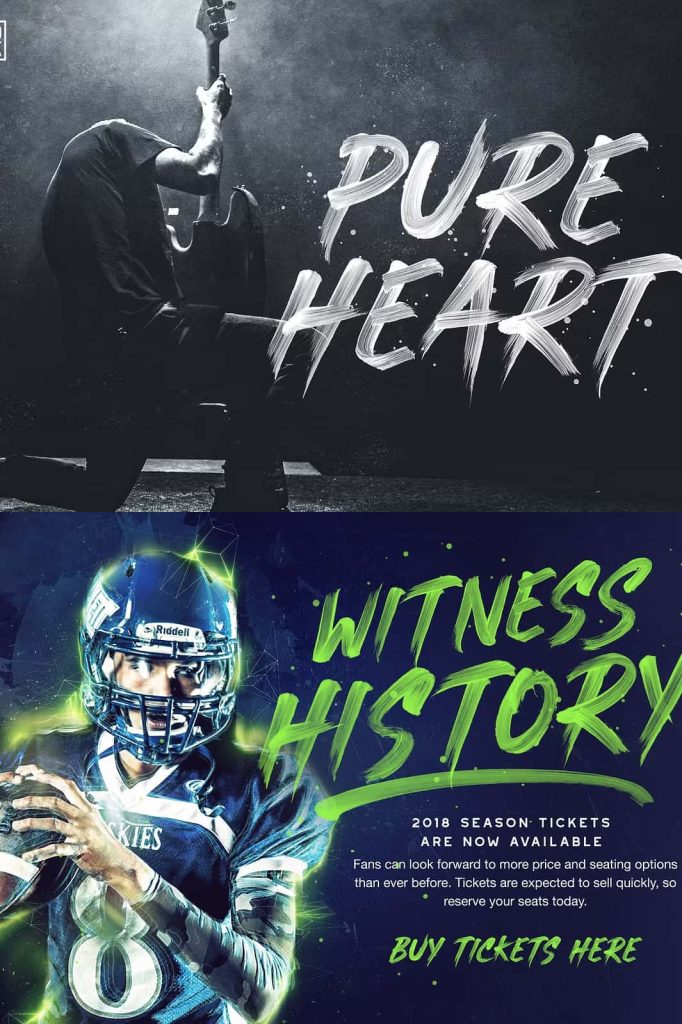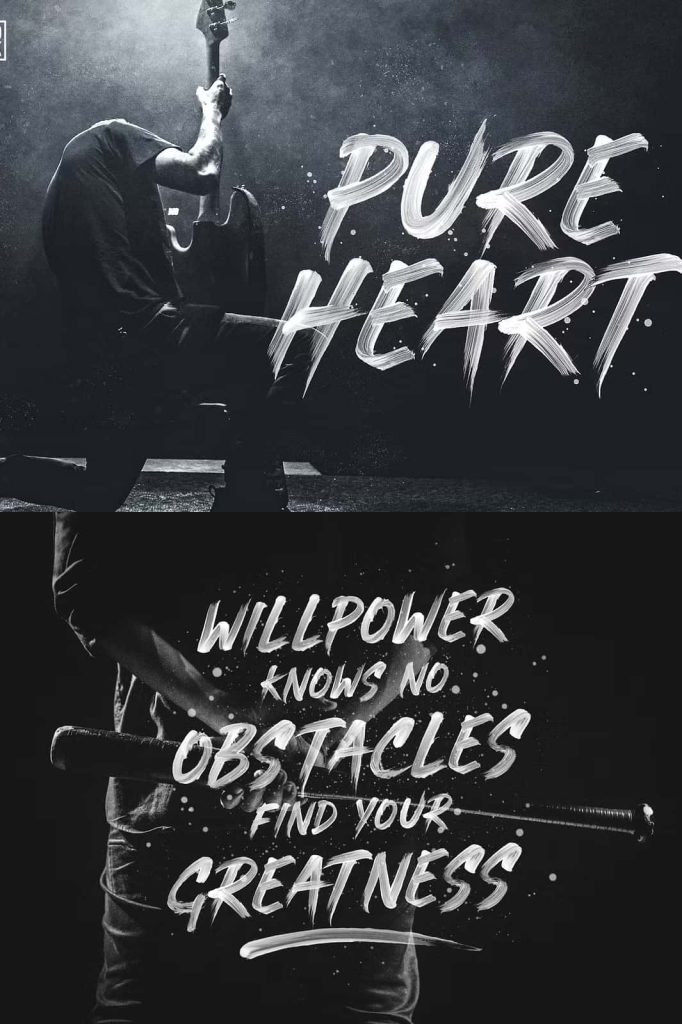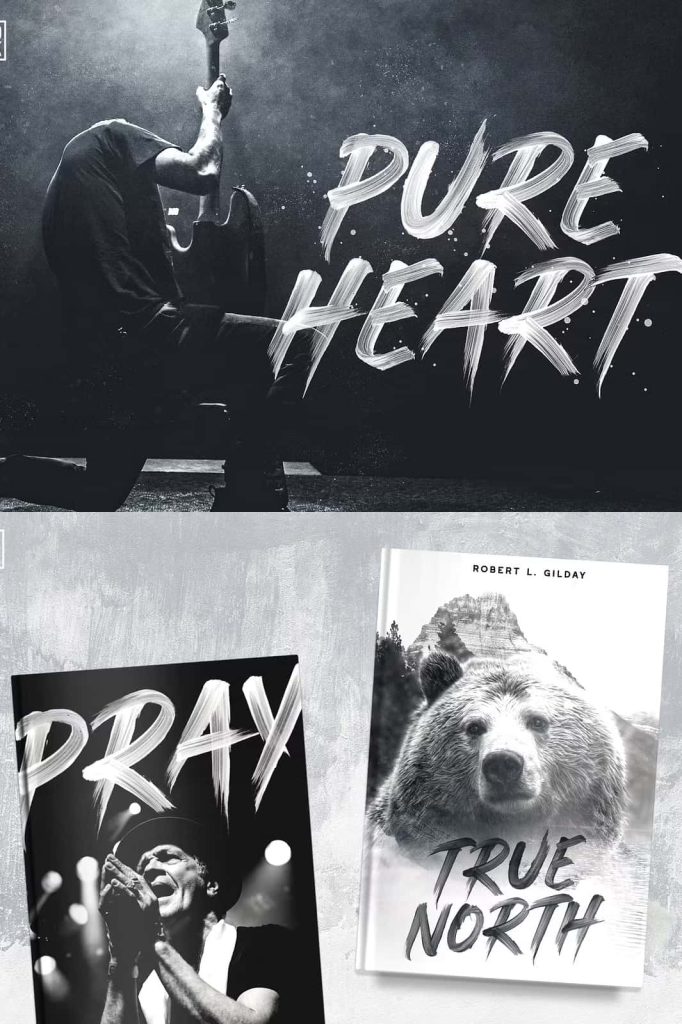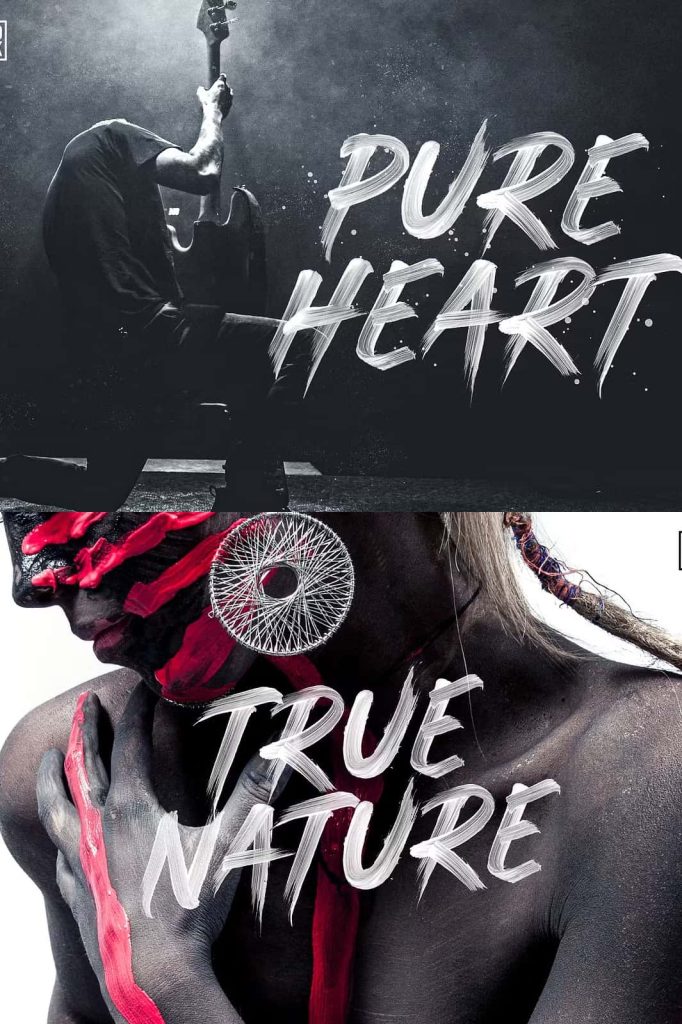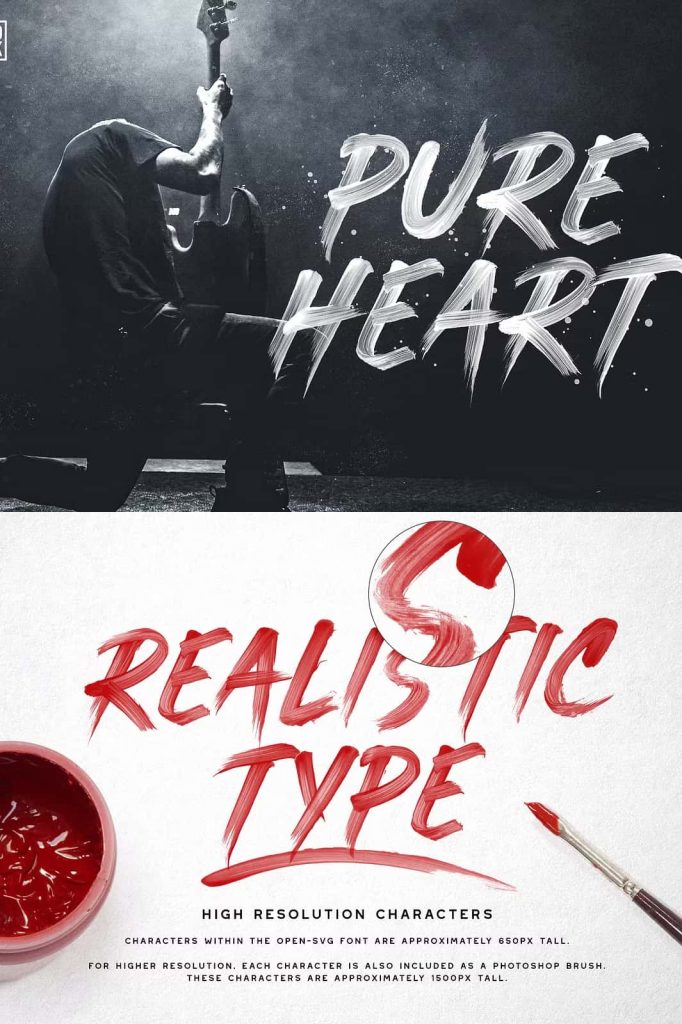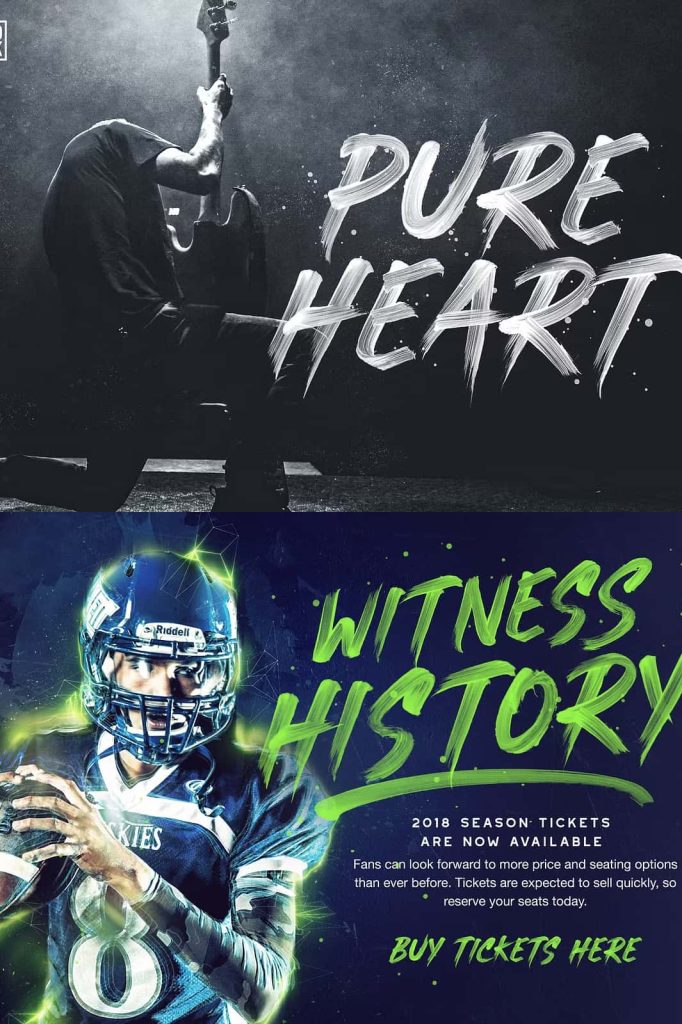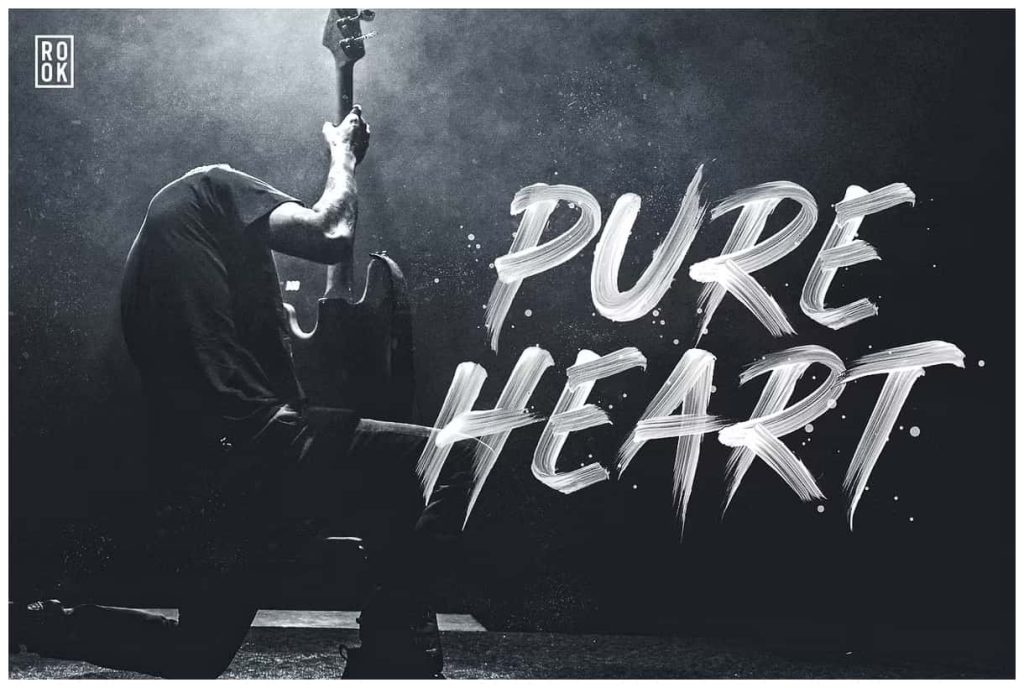
Pure Heart – OpenType SVG Brush FontleastedApril 17, 2025Fonts Take your design game to the next level with a hyper realistic font that truly looks hand painted. Download